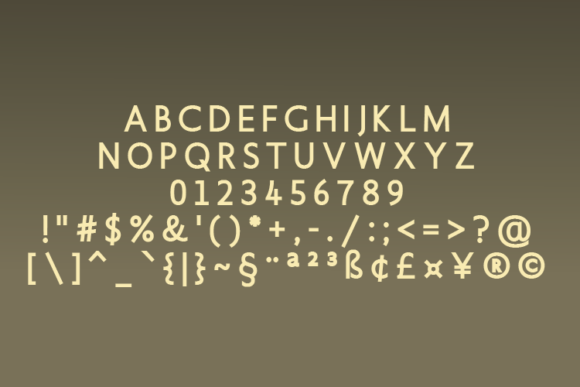
Introducing the Blankco Black Font, a fresh and geometric sans-serif font that’s perfect for making a statement. Inspired by iconic typefaces like Futura and Avant Garde, Blankco Black Font has a unique blend of modern and classic styles that’s sure to elevate your designs. With its big x-height value, geometrical letterforms, and sharp edges, this font is a versatile workhorse that can be used in everything from magazines and posters to branding and websites.
As a designer, you know that the right font can make all the difference in communicating your message. That’s why the Blankco Black Font is a valuable addition to any design toolkit. Its small stroke contrast and neo-grotesk influences make it a standout choice for anyone looking to create bold, eye-catching designs.
Blankco Black Font Key Features
- Unique Characteristics: Blankco Black Font features a bold, modern design with clean lines and geometric shapes, making it perfect for use in corporate branding, advertising, and editorial design.
- Language Support: Blankco Black Font supports a wide range of languages, including Latin, Cyrillic, Greek, and many others, making it a versatile font for international projects.
- Font Style: Blankco Black Font is available in 3 different font styles: Regular, Bold, and Black, allowing designers to choose the perfect weight for their design project.
Blankco Black Font Review
Overall, I’d say Blankco Black Font is a solid choice for designers looking for a sleek, modern sans-serif typeface. Here are some things I think work well:
- ✨ Versatility: Blankco Black Font is incredibly versatile, suitable for use in both digital and print media.
- ✨ Clean lines: The font’s clean lines and minimal ornamentation make it perfect for applications where a clear, uncluttered look is desired.
- ✨ Readability: Blankco Black Font is highly readable, even at small font sizes, which is a must for digital applications.
However, I do have some reservations:
- ⚠️ Limited character set: Blankco Black Font’s character set is limited, which may be a concern for designers working on projects that require specific language support.
- ⚠️ Not ideal for body text: While Blankco Black Font works well for headings and titles, it may not be the best choice for body text due to its relatively large x-height.
Overall, I think Blankco Black Font is a great addition to any designer’s toolkit. While it may not be perfect, its strengths far outweigh its limitations, making it a solid choice for a wide range of design applications.
Tips for Getting the Most Out of Blankco Black Font
Use Blankco Black Font for headlines and titles to add a touch of sophistication and elegance.
Pair Blankco Black Font with other sans-serif fonts to create a clean and modern look.
Experiment with different font sizes and styles to add visual interest to your design.
Business cards and letterheads
Brochures and flyers
Website headers and footers
Reports and presentations